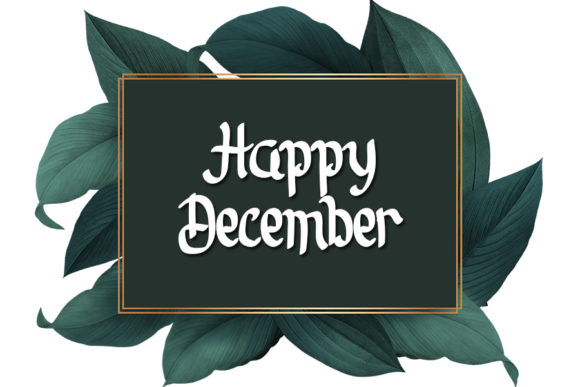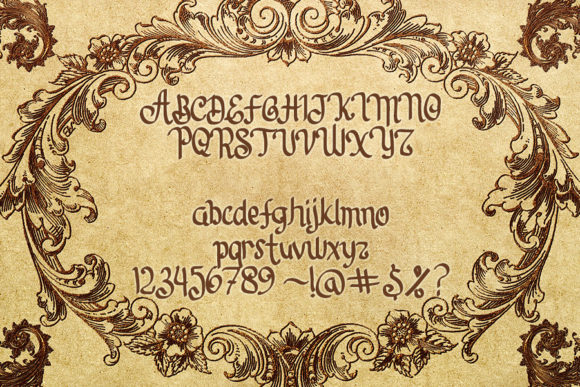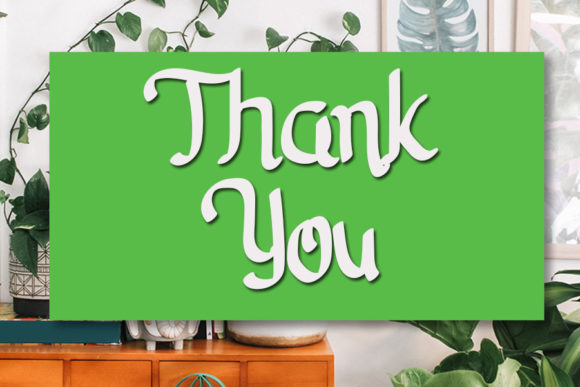
Assasint Font
About Assasint Font
Assasint is a delicate and unique handwritten font. It looks stunning on wedding invitations, thank you cards, quotes, greeting cards, logos, business cards and every other design which needs a handwritten touch.